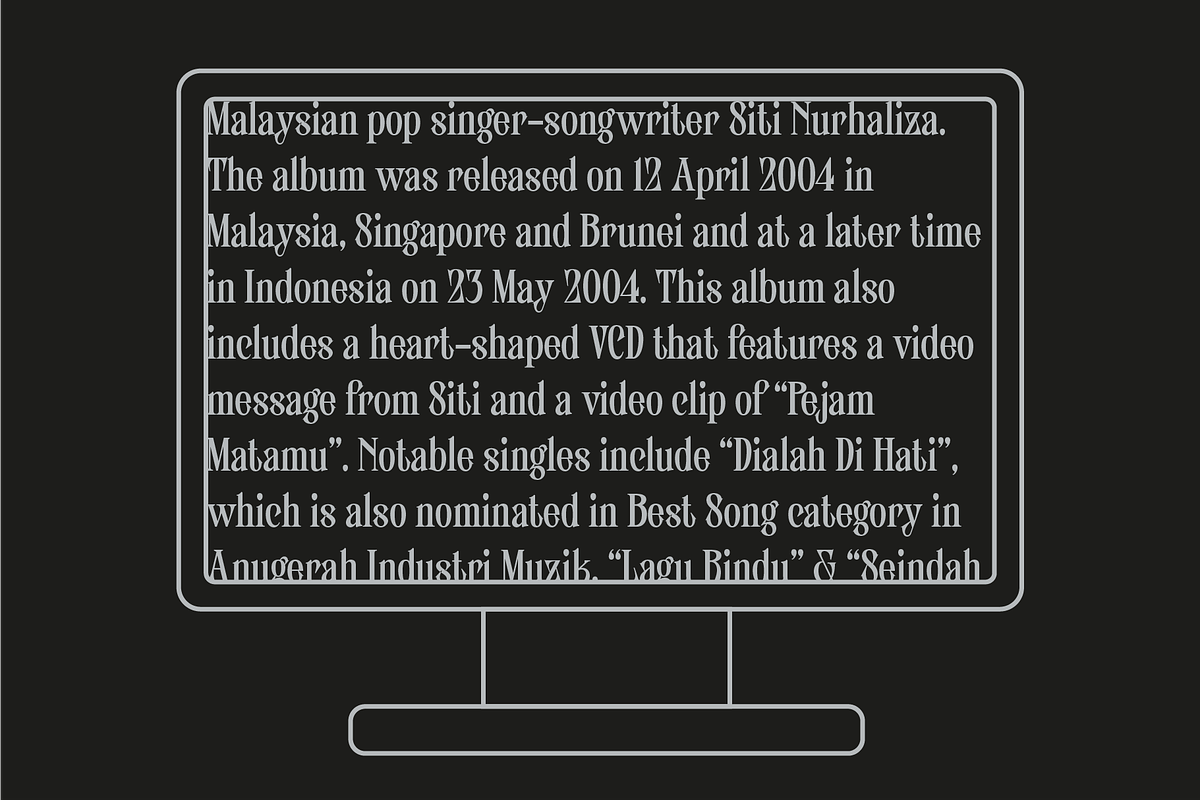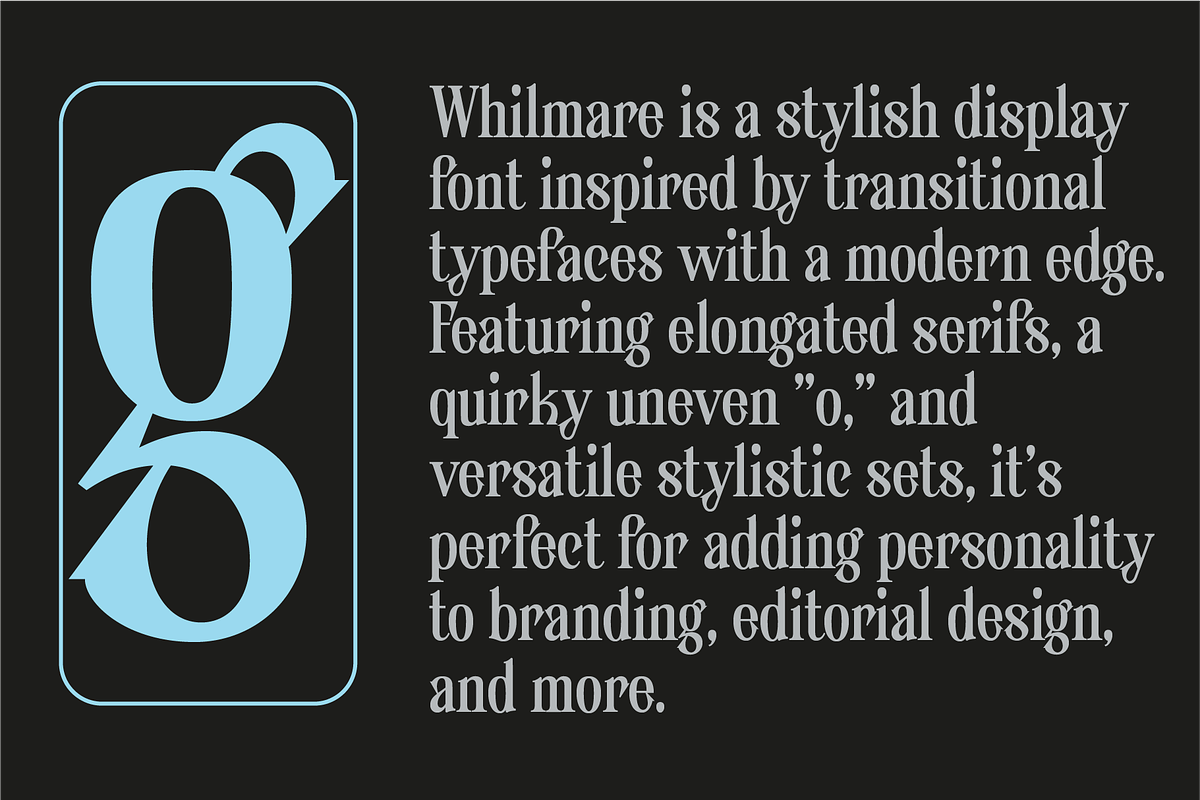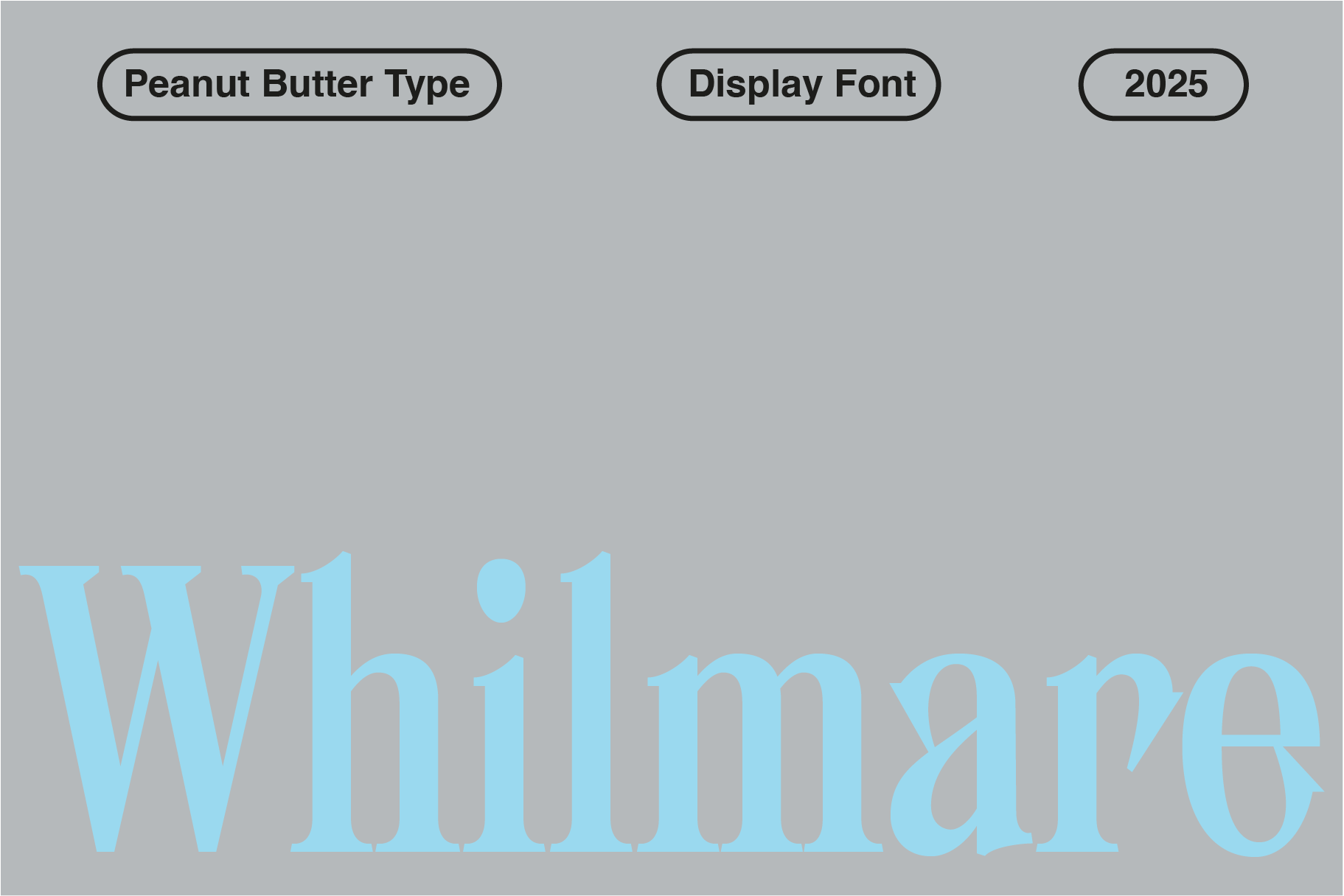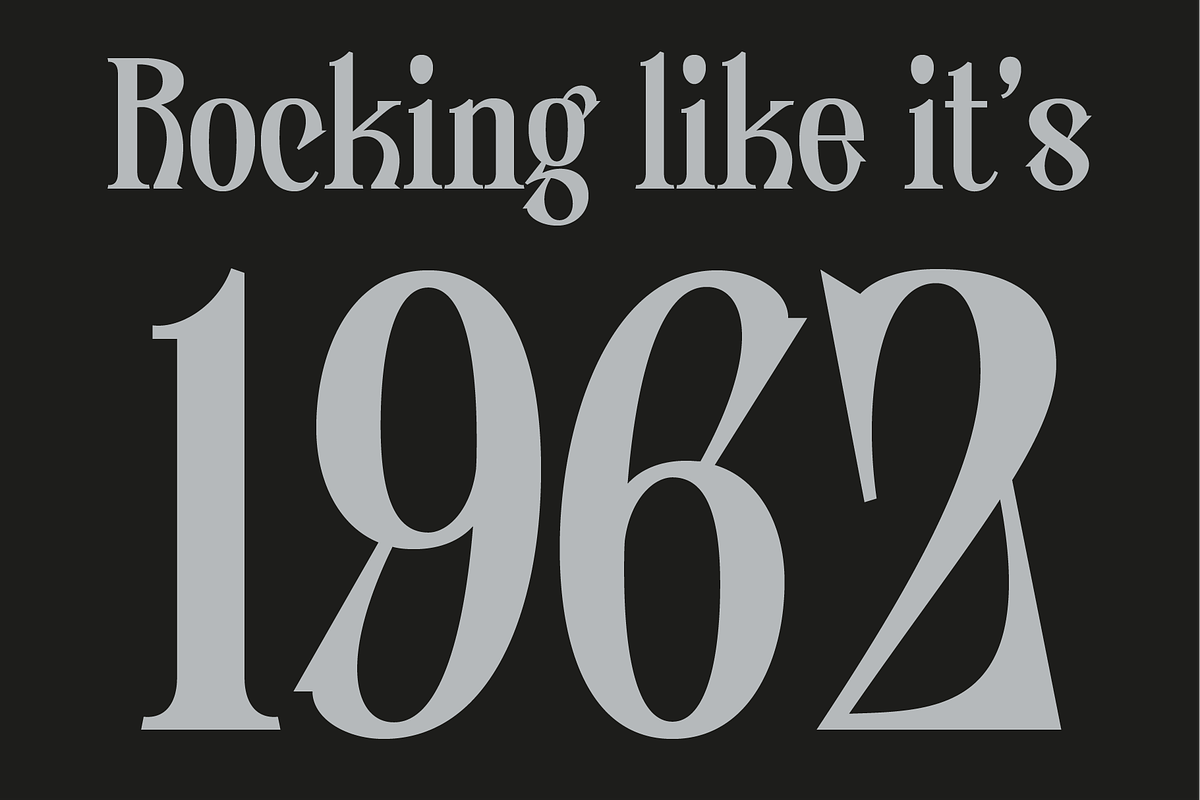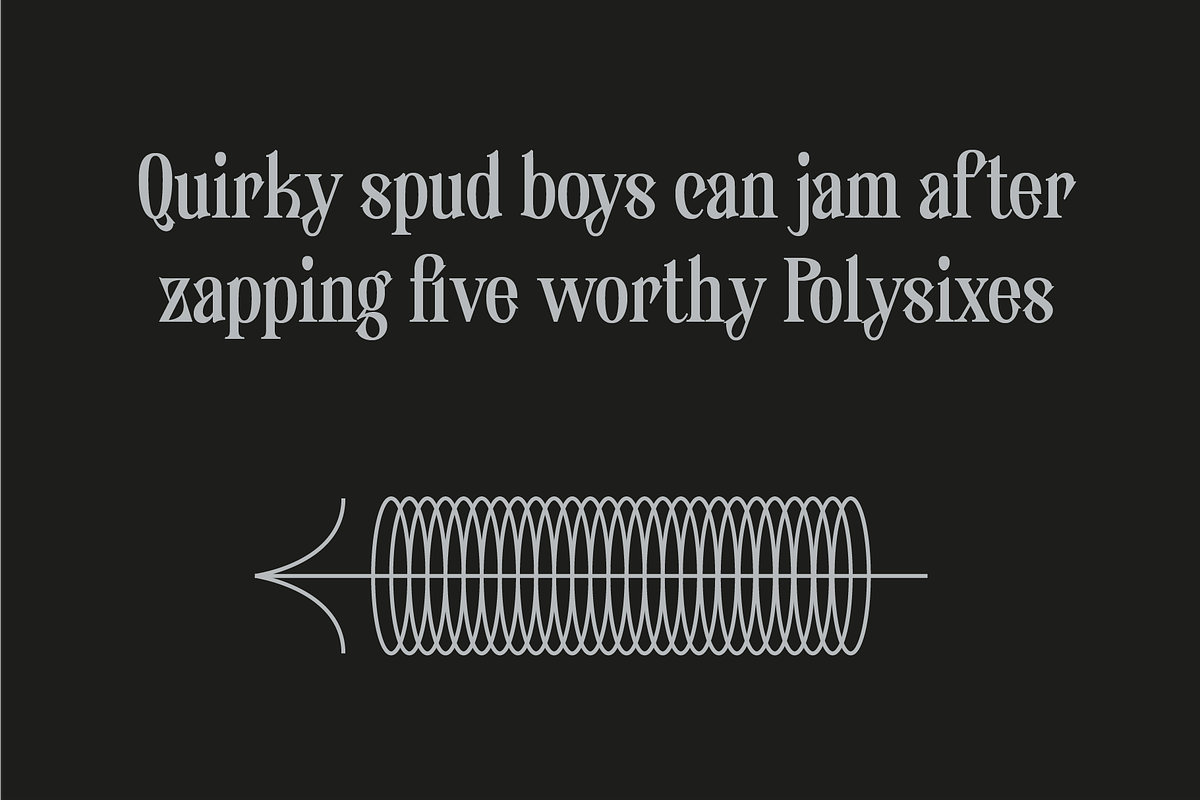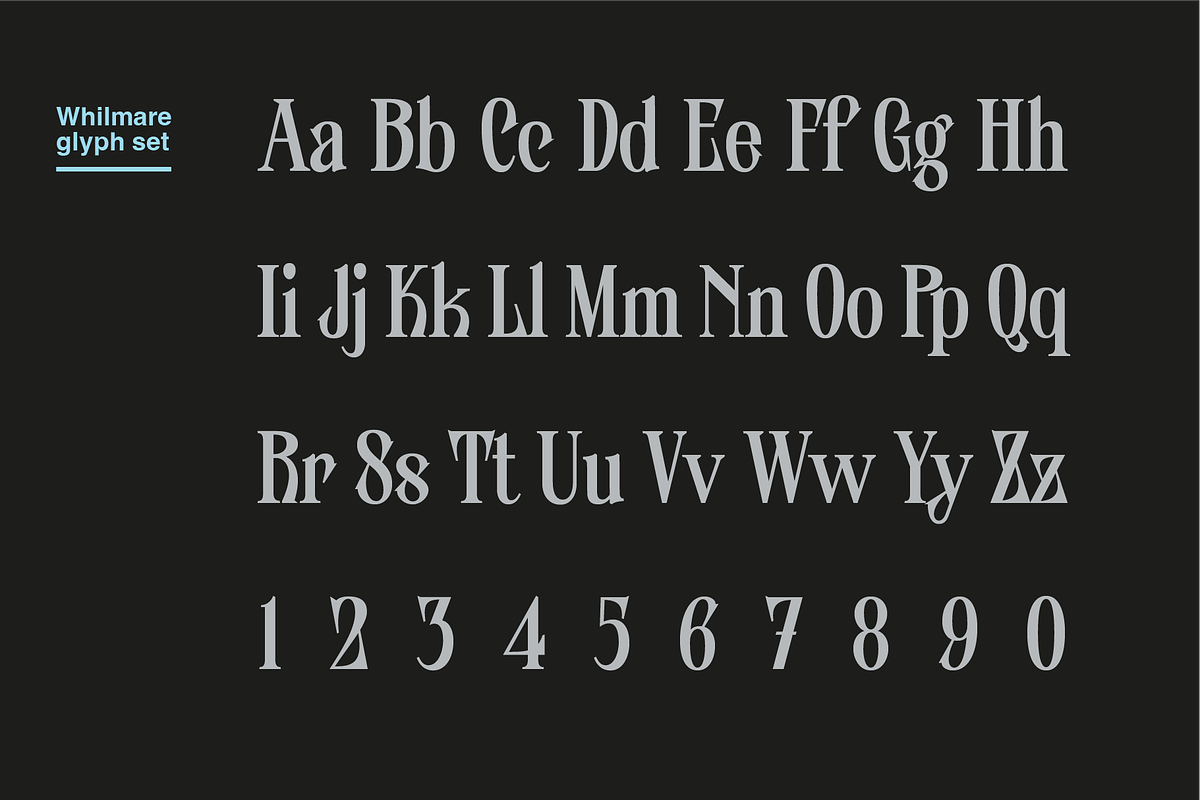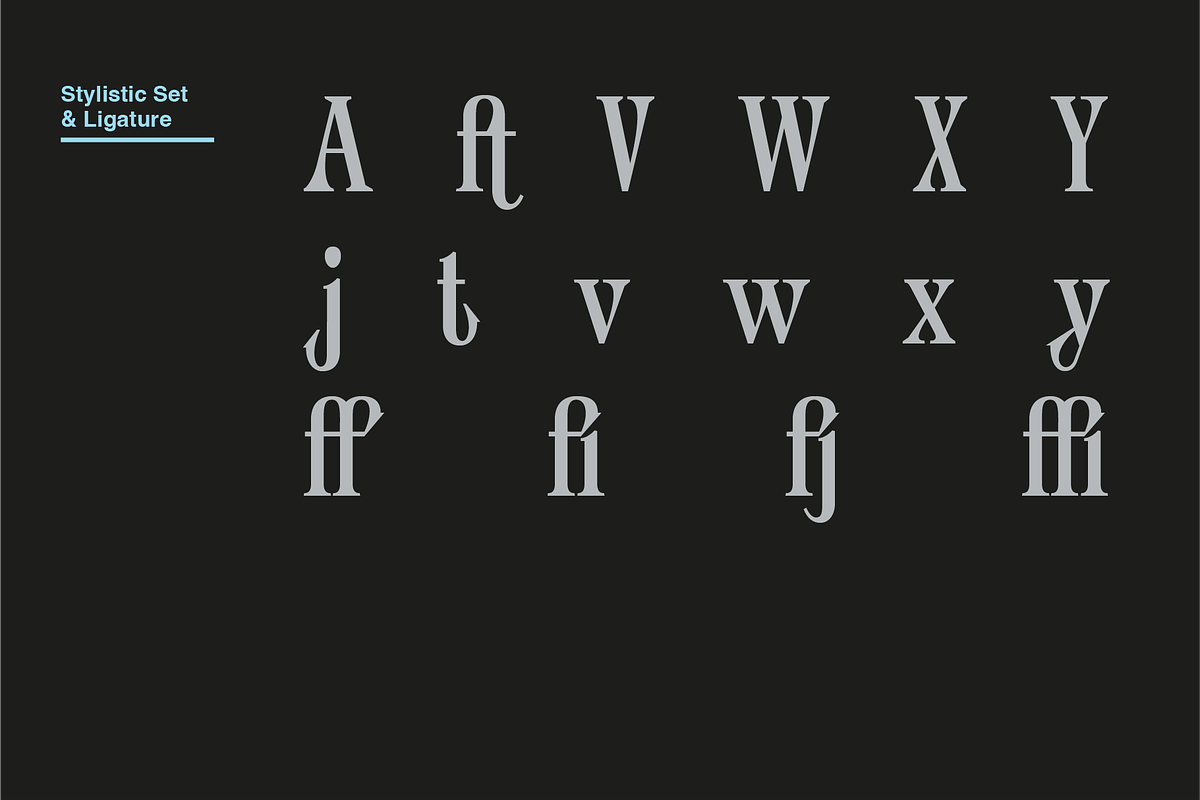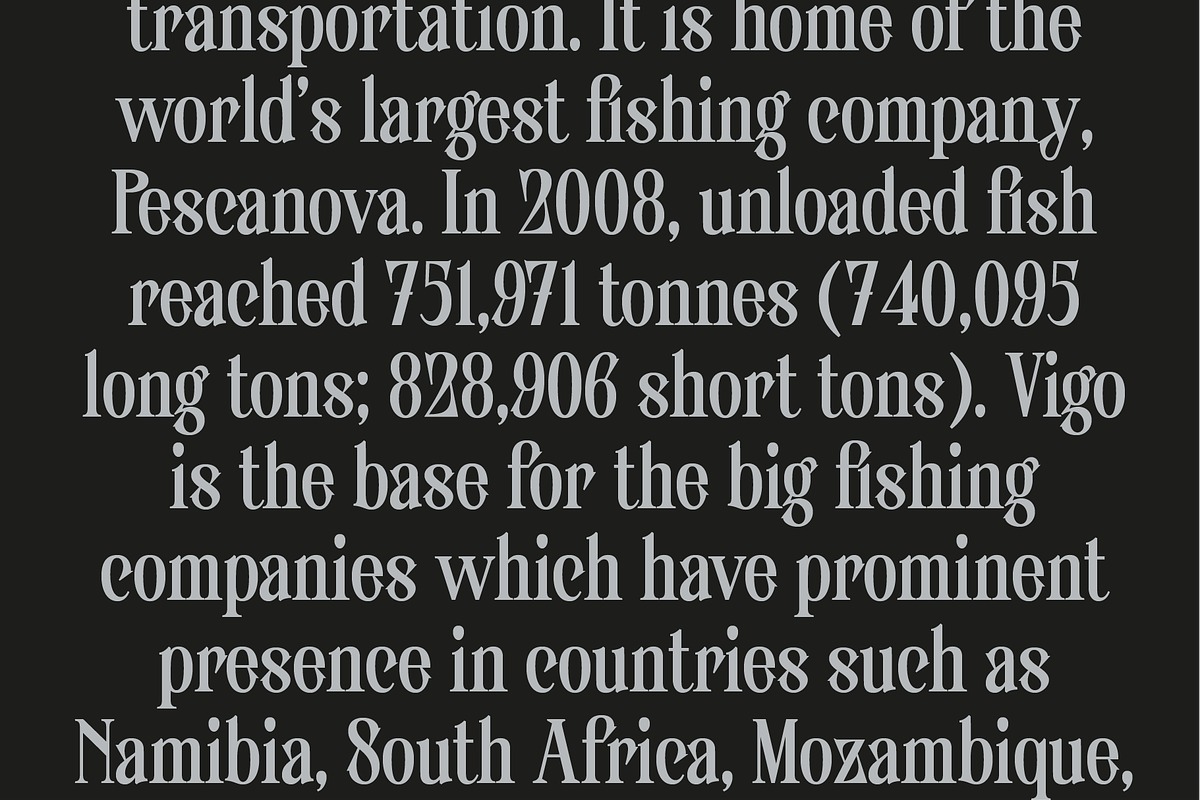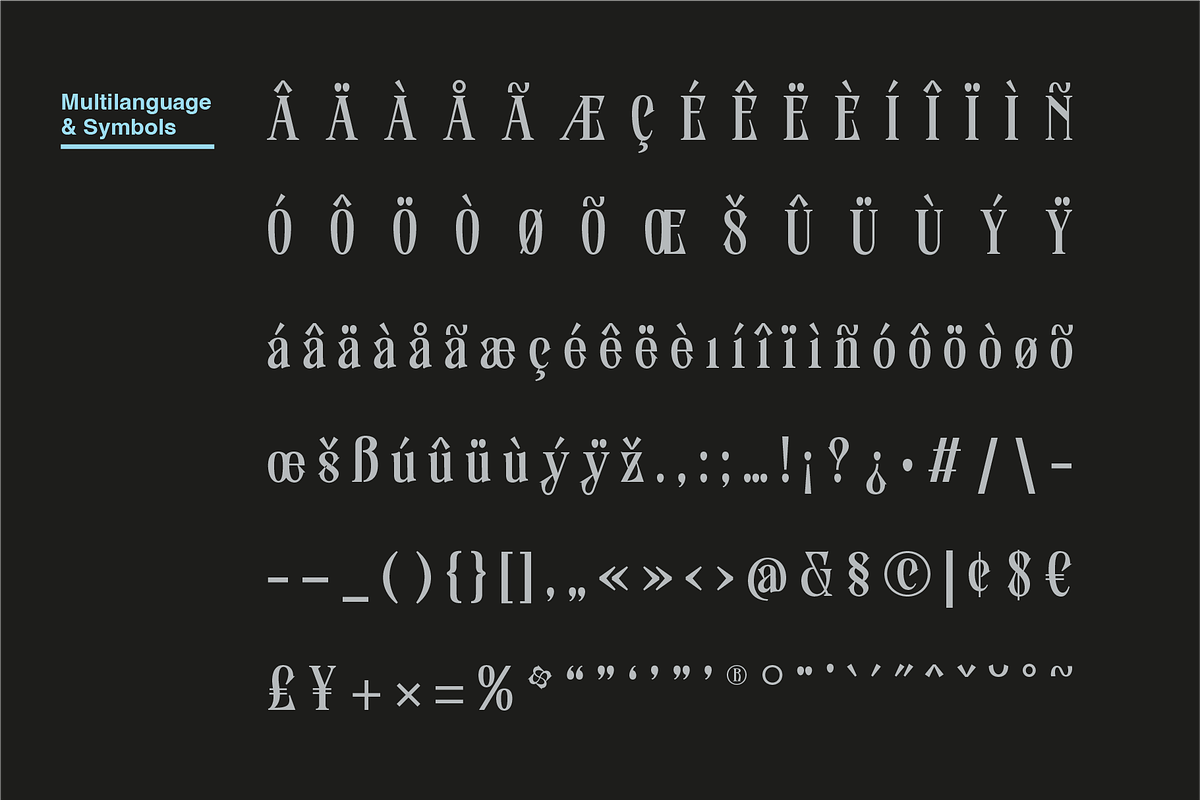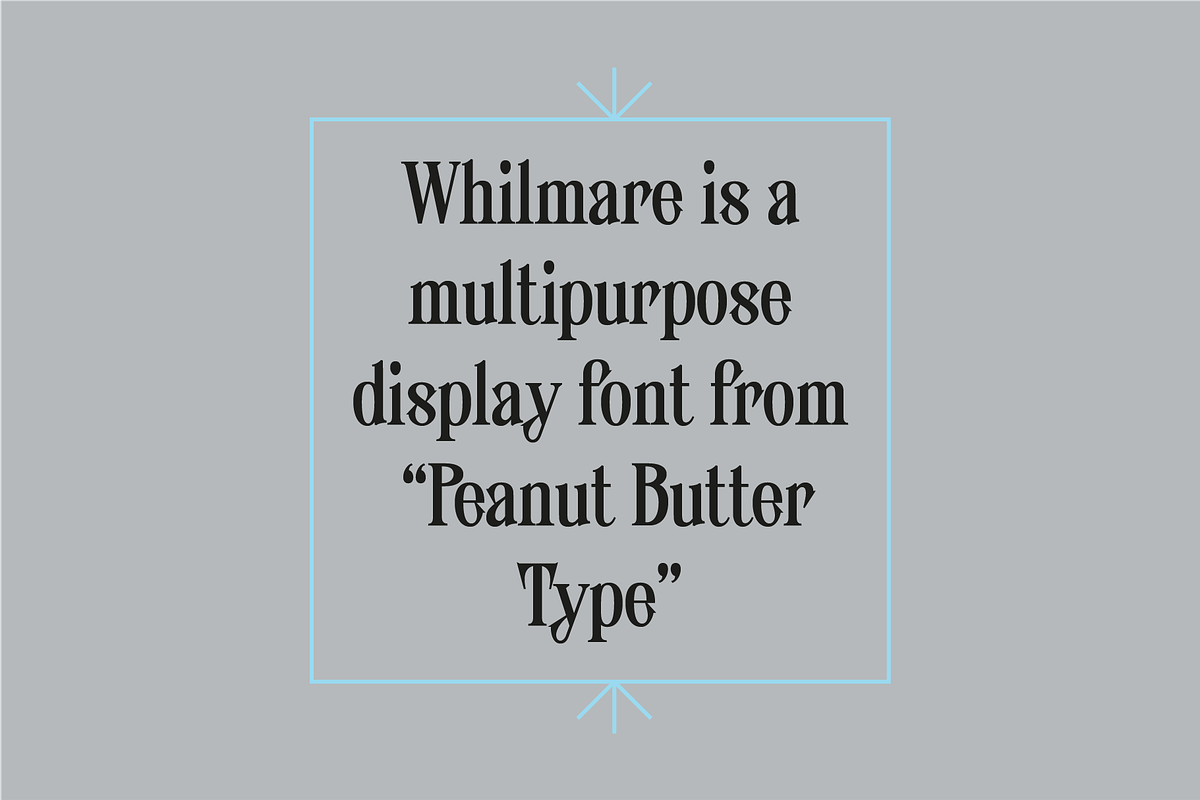
Whilmare Font
Whilmare is a stylish display font inspired by transitional typefaces with a modern edge. Featuring elongated serifs, a quirky uneven "o," and versatile stylistic sets, it’s perfect for adding personality to branding, editorial design, and more.